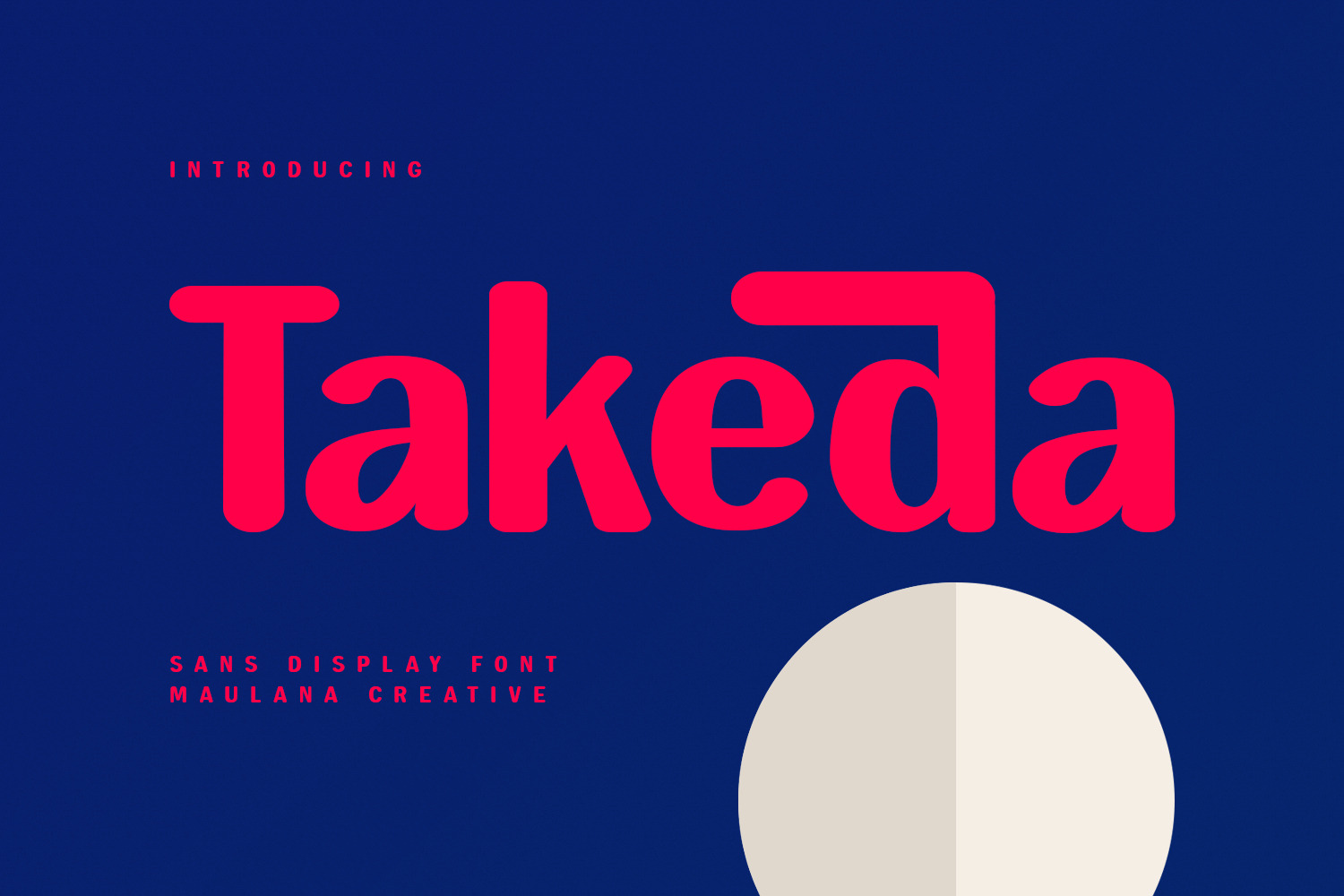
Takeda Sans Display Font Rounded
Takeda is a sans serif rounded display font. With bold tall and sharp stroke, fun character with a bit of ligatures and alternates. To give you an extra creative work. Takeda font support multilingual more than 100+ language. This font is good for logo design, Social media, Movie Titles, Books Titles, a short text even a long text letter and good for your secondary text font with sans or serif. Make a stunning work with Takeda font.